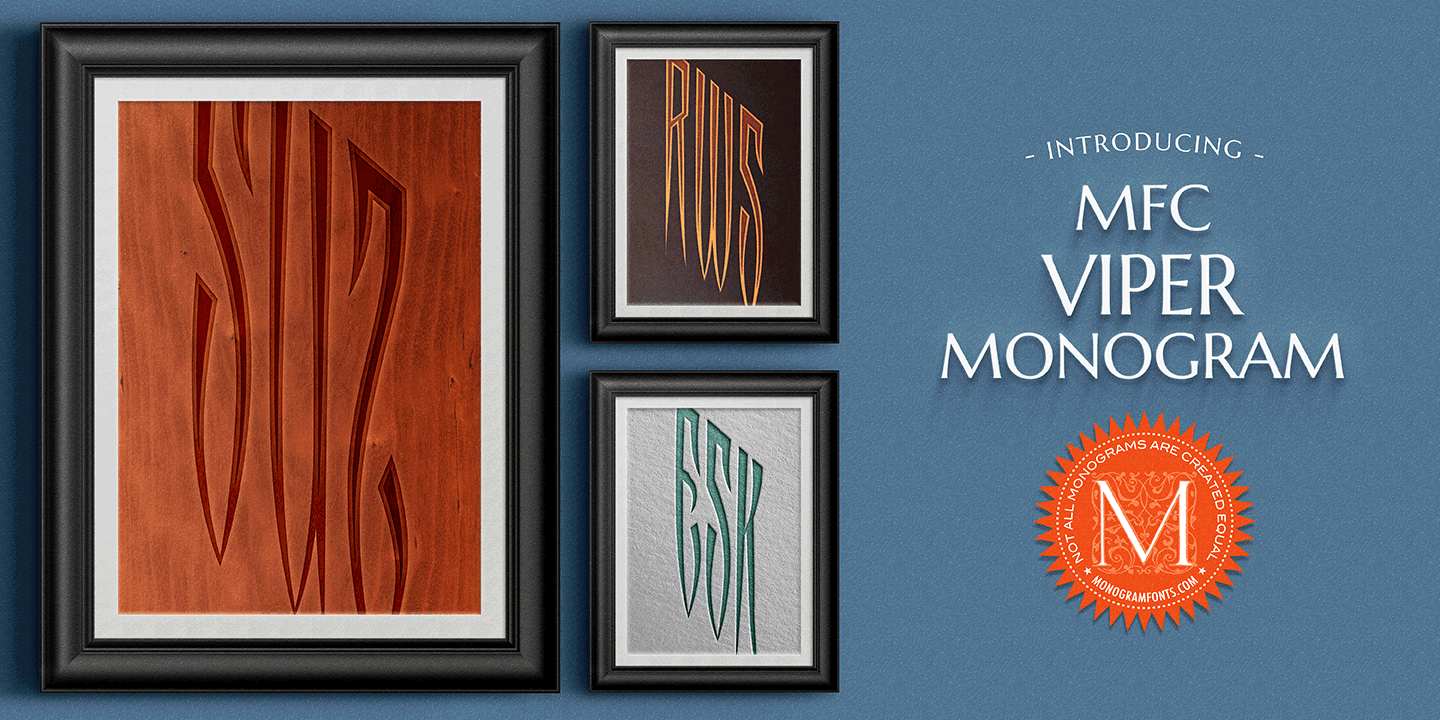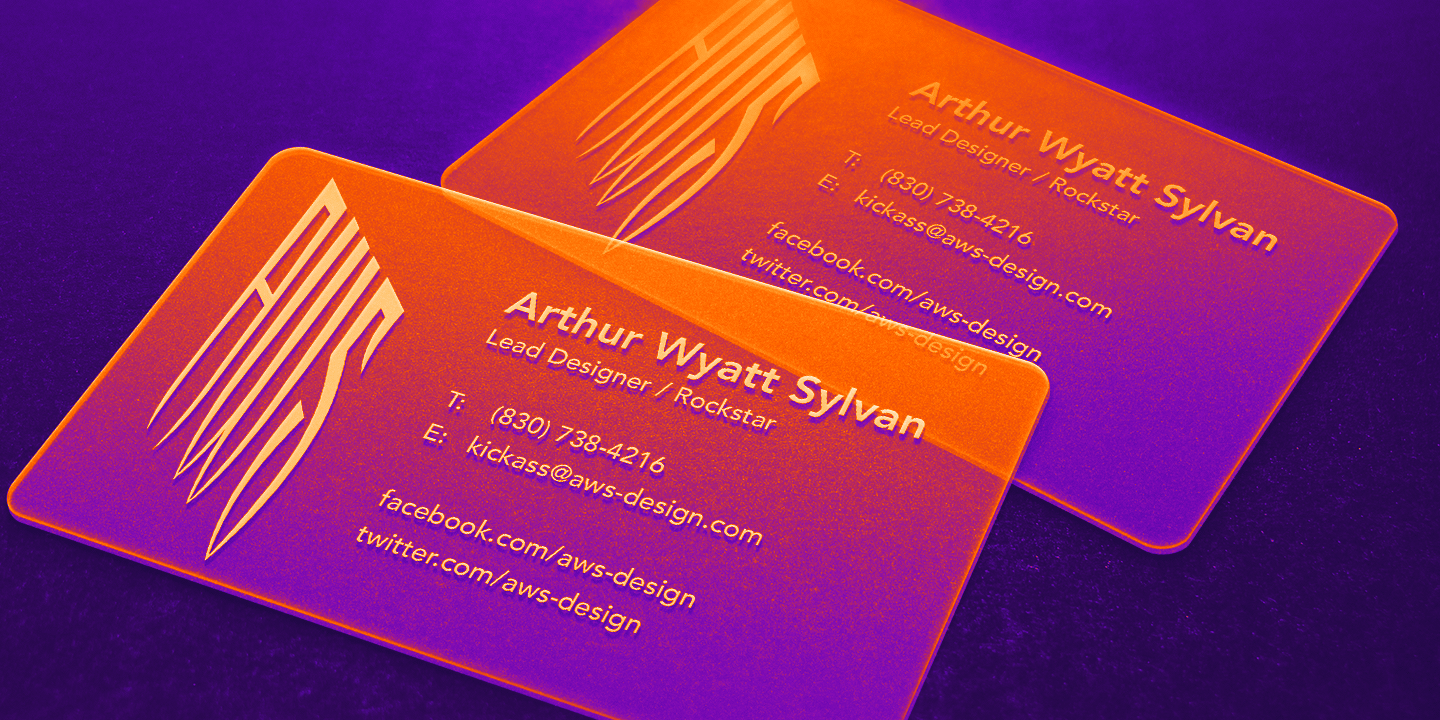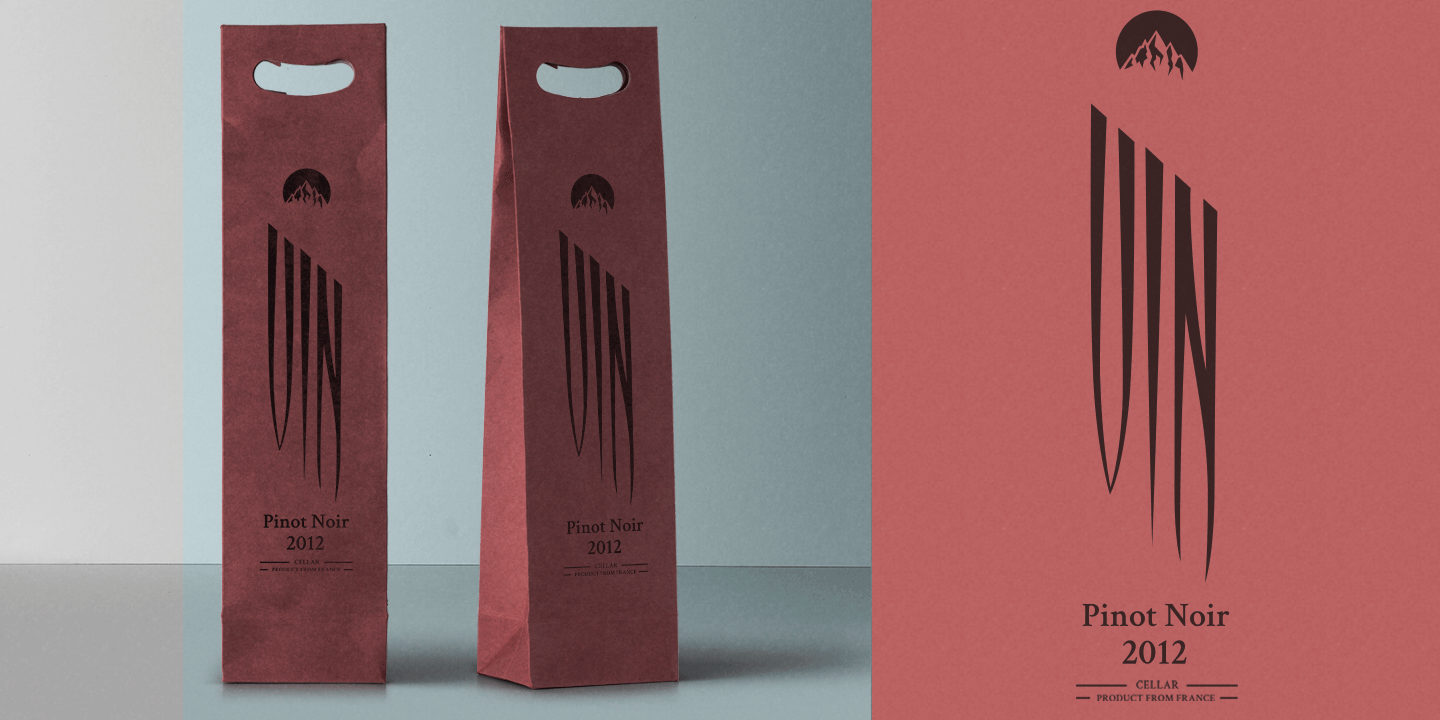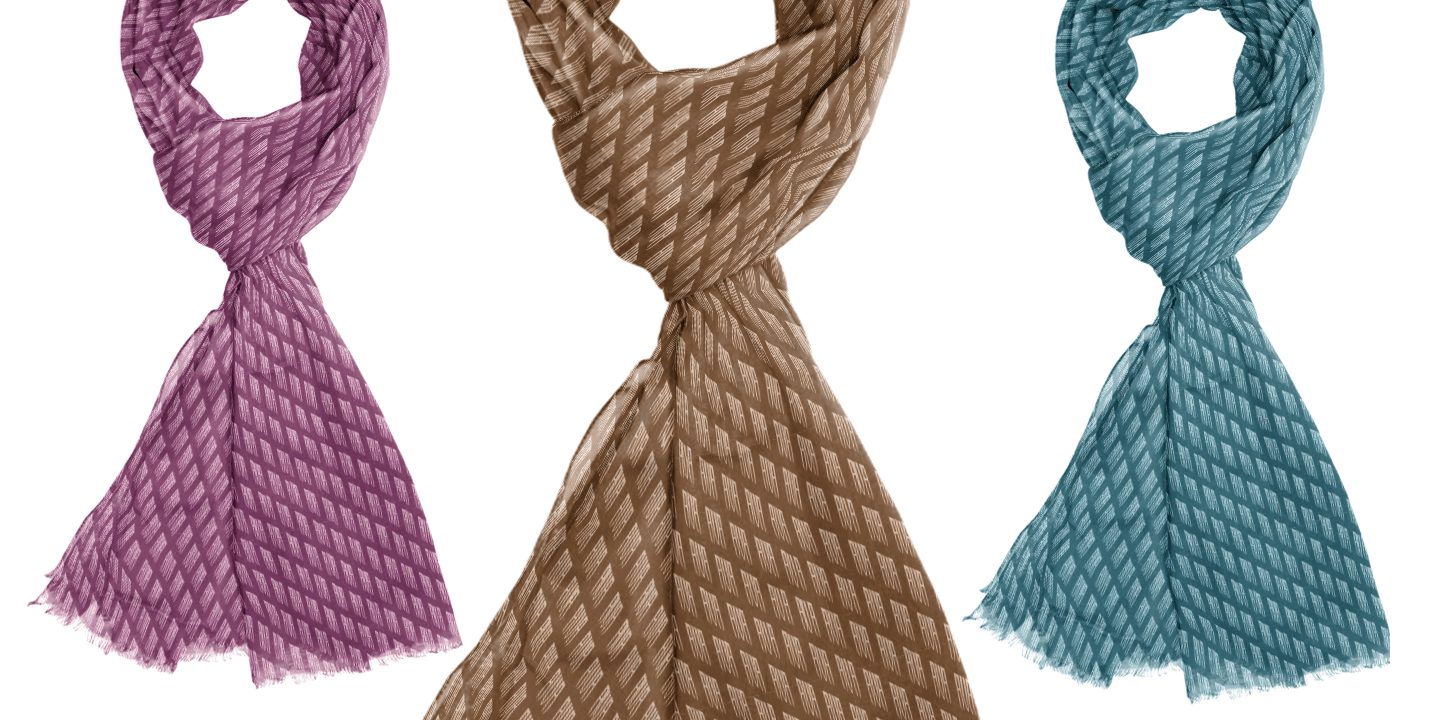
Viper Monogram
Font Family by Monogram Fonts Co
The inspiration source for Viper Monogram is the 1934 Book of American Types by American Type Founders. Found in that specimen book was a sophisticated two-color monogram design called Hollywood Combination Initials. This wonderful monogram style is now digitally recreated, revived, and updated for modern use! Viper Monogram supports one and two letter monograms, but due to its super condensed style works best for three letter monograms. Lots of Openype features to choose from: all horizontal all caps (default), outline, diagonal top-aligned monograms and two-color effects. Viper Monogram is available in Pro format Opentype fonts only due its unique setup.